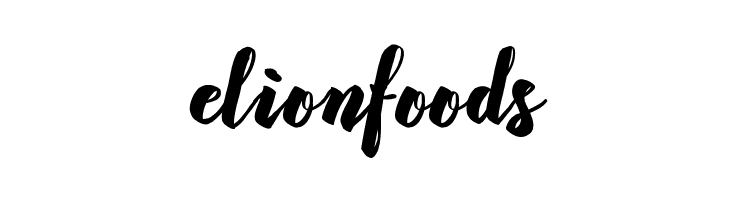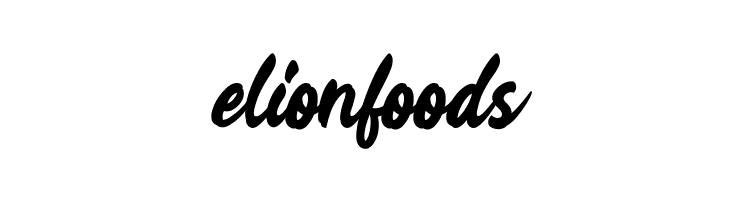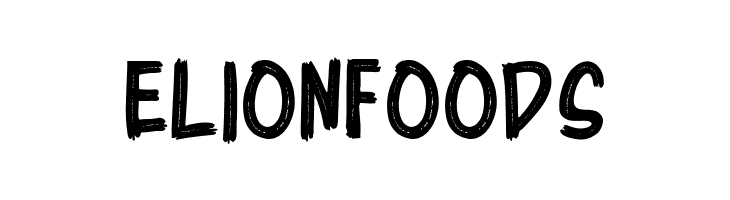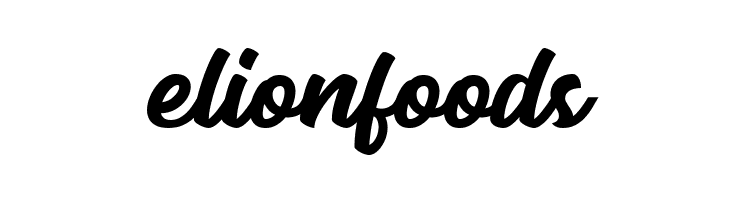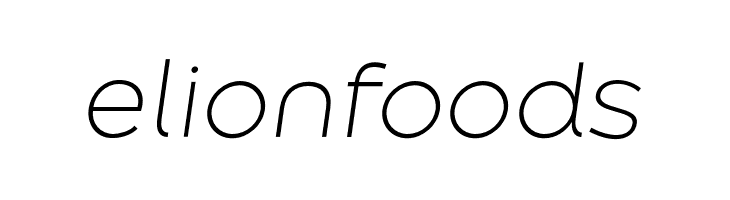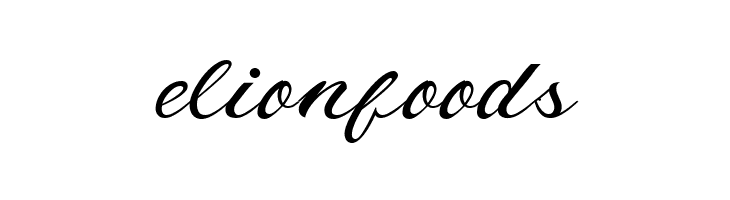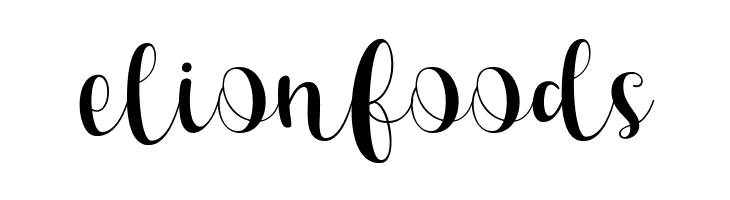
A bold, expressive script font with fluid, interconnected strokes and decorative flourishes.
A flowing script font with elegant, connected strokes and a handwritten feel.
A bold, brush-style font with an energetic and hand-drawn appearance.
A bold, dynamic script font with fluid, cursive strokes and a lively appearance.
A modern, extra light italic sans-serif font with clean lines and a refined aesthetic.
A sophisticated cursive font with elegant, flowing strokes and dramatic contrasts.
A sophisticated and flowing script font with elegant cursive letterforms.
An elegant, cursive script font with decorative flourishes and high contrast.
A fluid and elegant script font with cursive strokes and graceful loops.
An elegant, flowing script font with graceful, cursive letterforms and decorative flourishes.